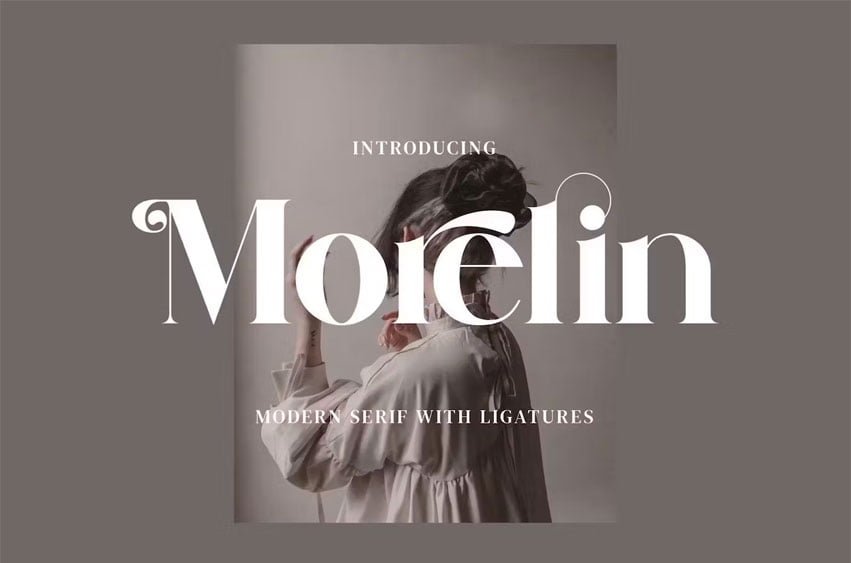
Morelin Font is an elegant and classy serif typeface – This font is both modern and nostalgic and works great for logos, magazines, and social media. Already matched up and ready to be used together for your next design! For those of you who are needing a touch of elegant, stylish, classy, chic and modernity for your designs, this font was created for you!
Morelin was built with OpenType features and includes ligatures, numbers, punctuation, and it also supports other languages.